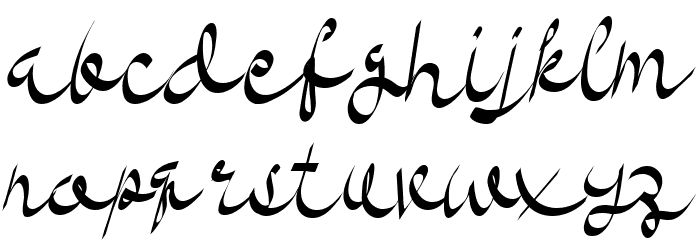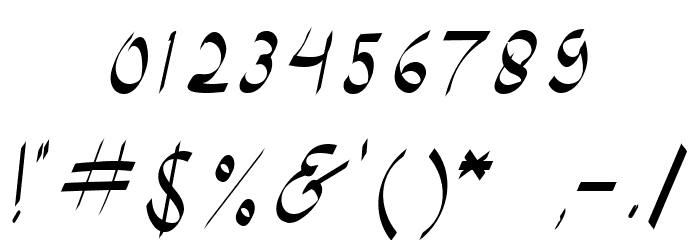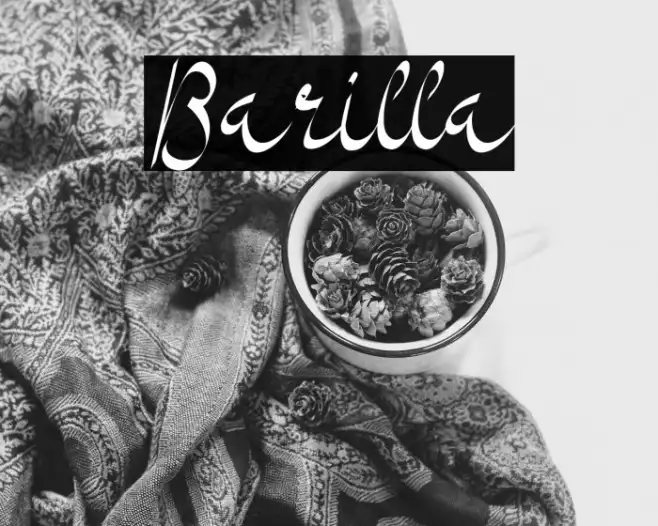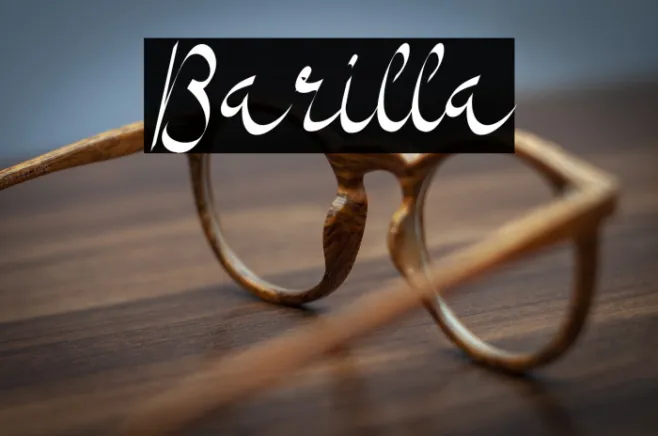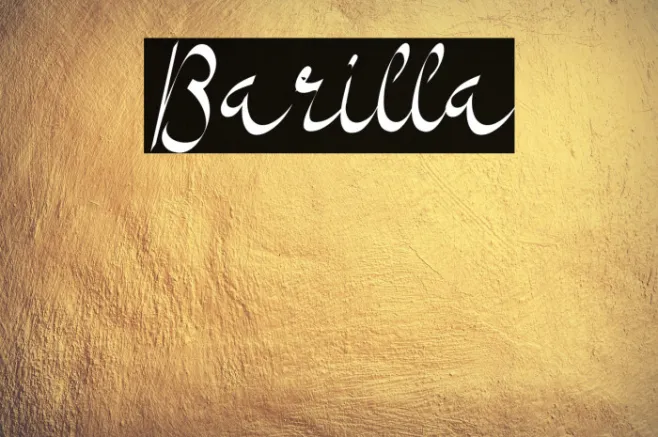
Barilla Font
This font features a dynamic and elegant script style, characterized by fluid, cursive strokes that convey a sense of motion and grace. The uppercase letters are tall and slightly slanted, with a refined elegance that is both sophisticated and approachable. The lowercase letters maintain a consistent flow, with smooth connections between characters, enhancing readability while preserving the artistic flair. Numbers and special characters are crafted with the same attention to detail, ensuring a cohesive look across all glyphs. The overall design is reminiscent of classic calligraphy, yet it retains a modern touch, making it versatile for various design needs.
A dynamic and elegant script font with fluid, cursive strokes.
- Proposed Projects: Ideal for wedding invitations, elegant branding, luxury product packaging, and artistic posters.
- Category: Script
- Overall Style: Classic
- Use Case: Logos, Invitations, Branding